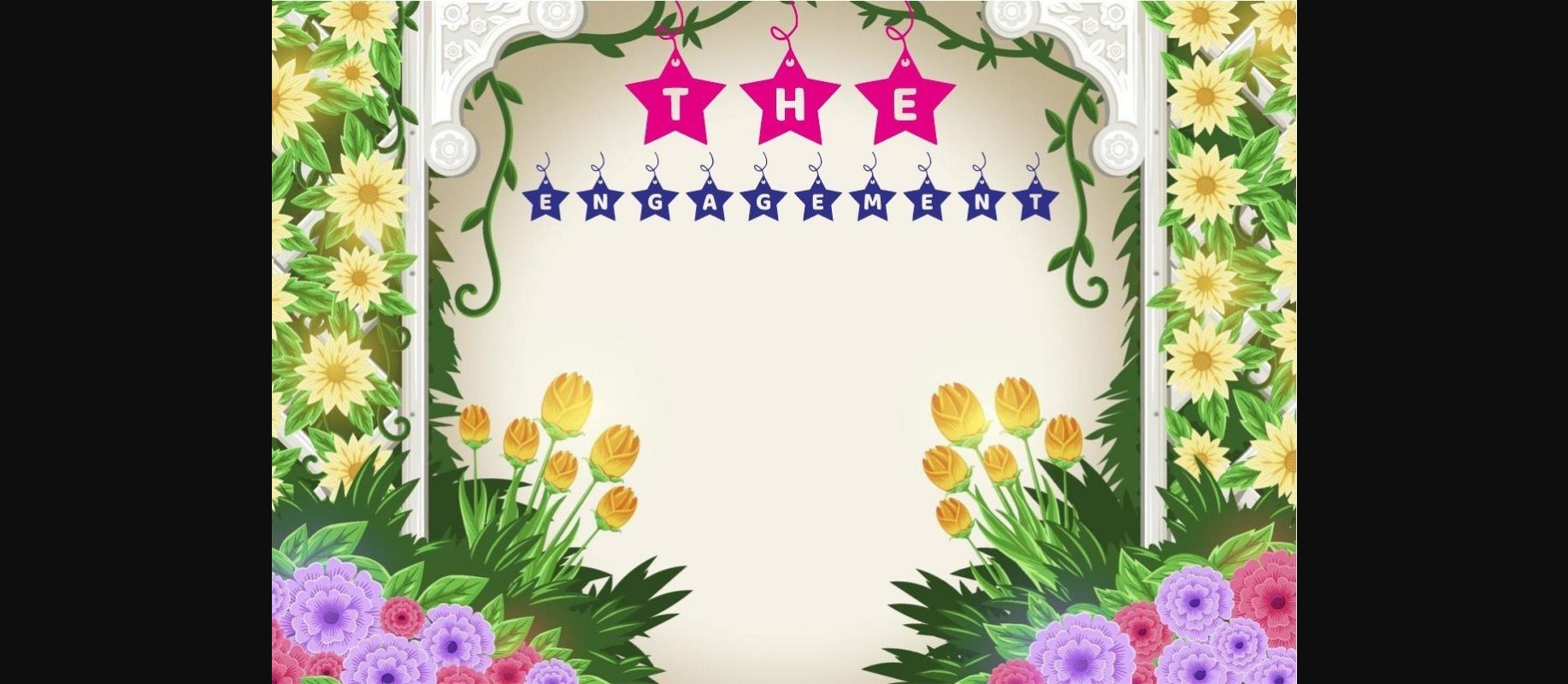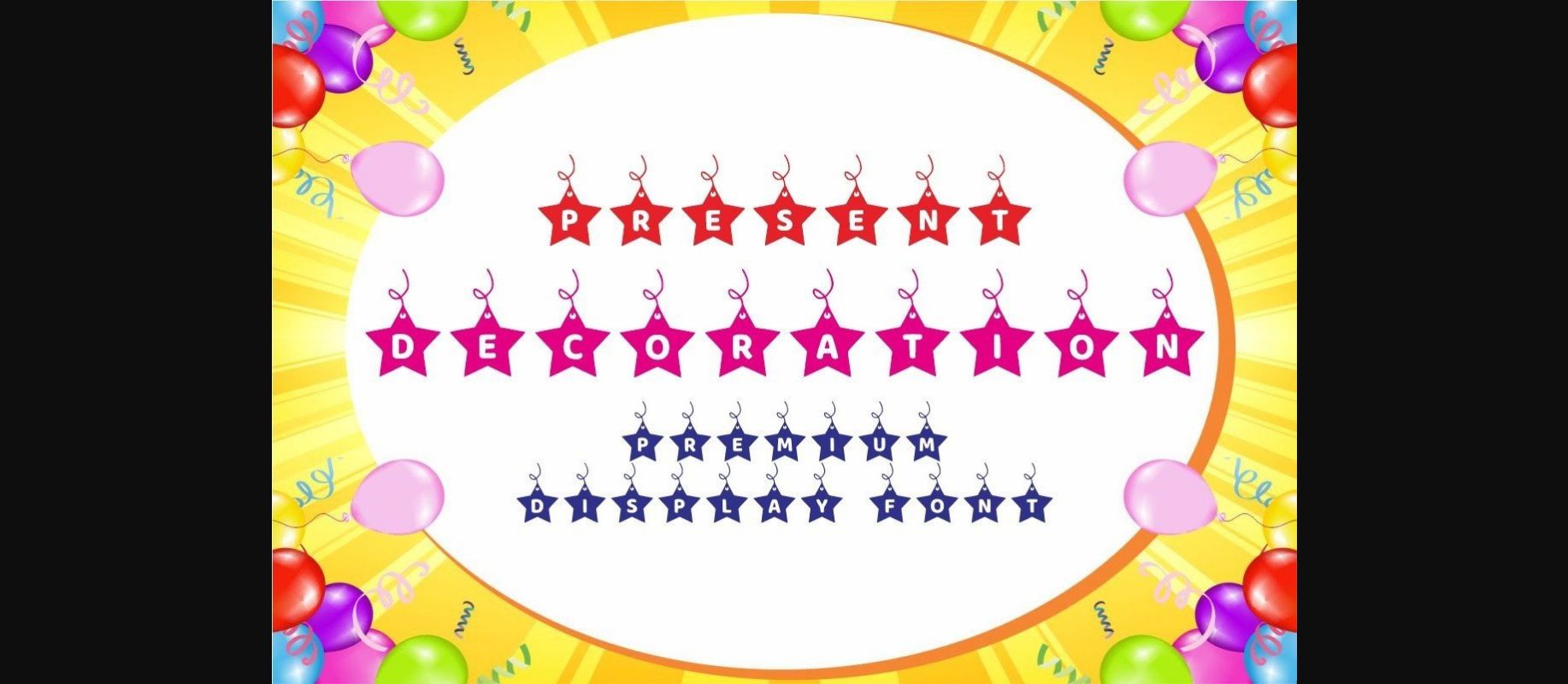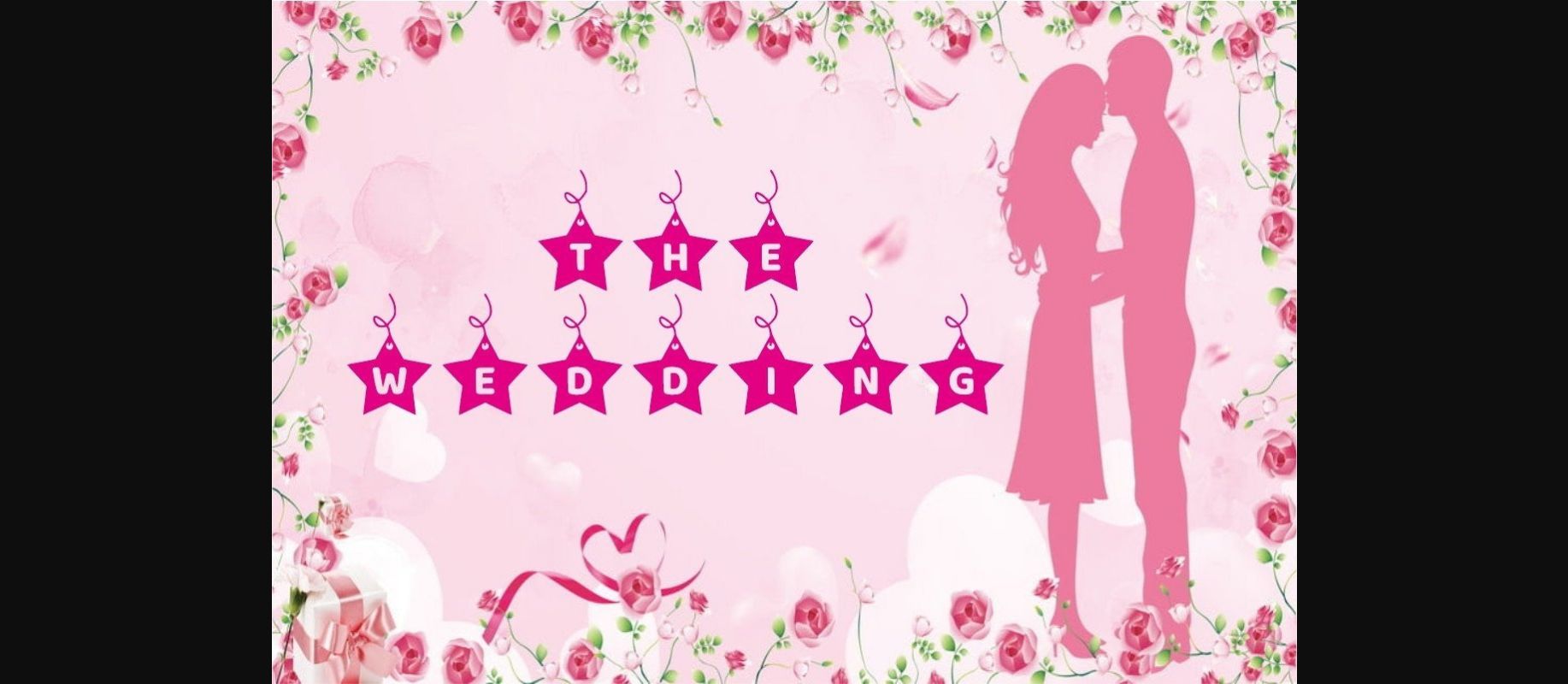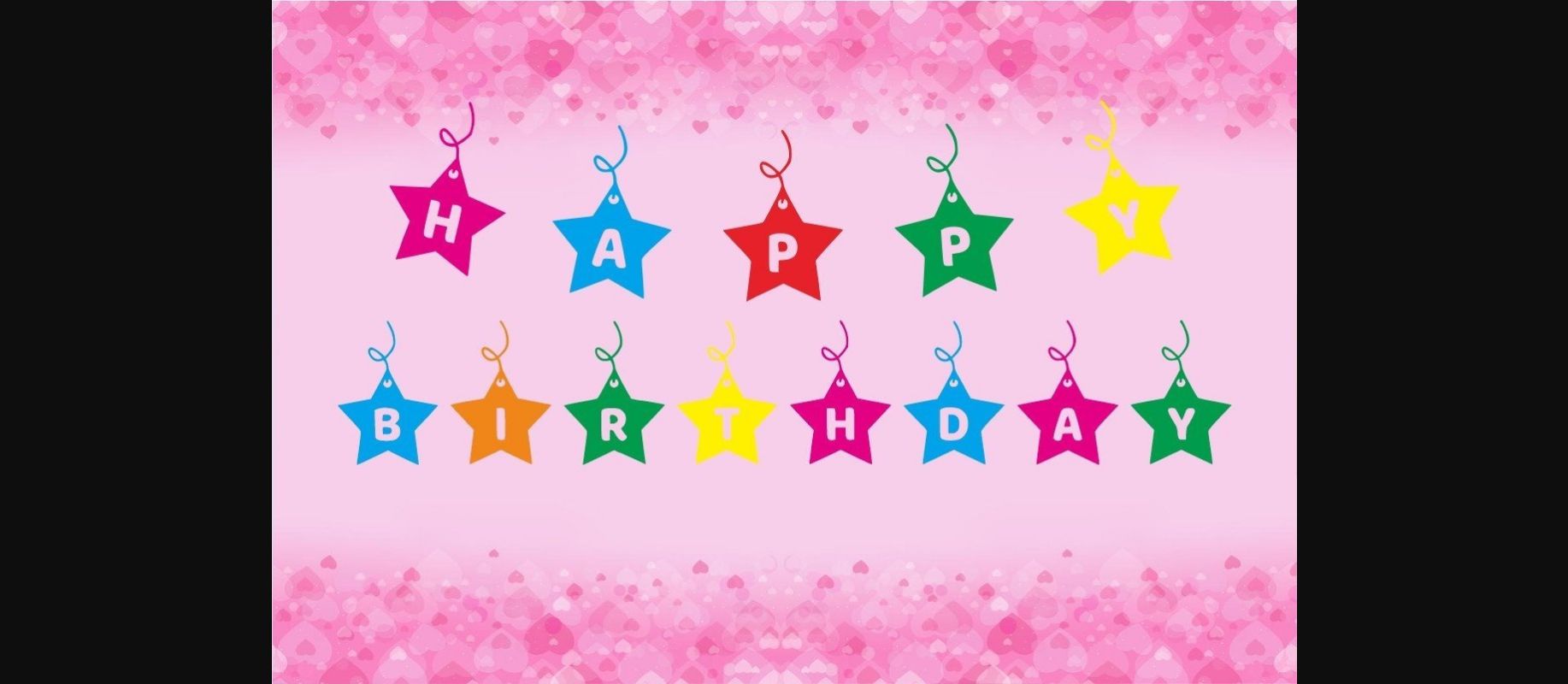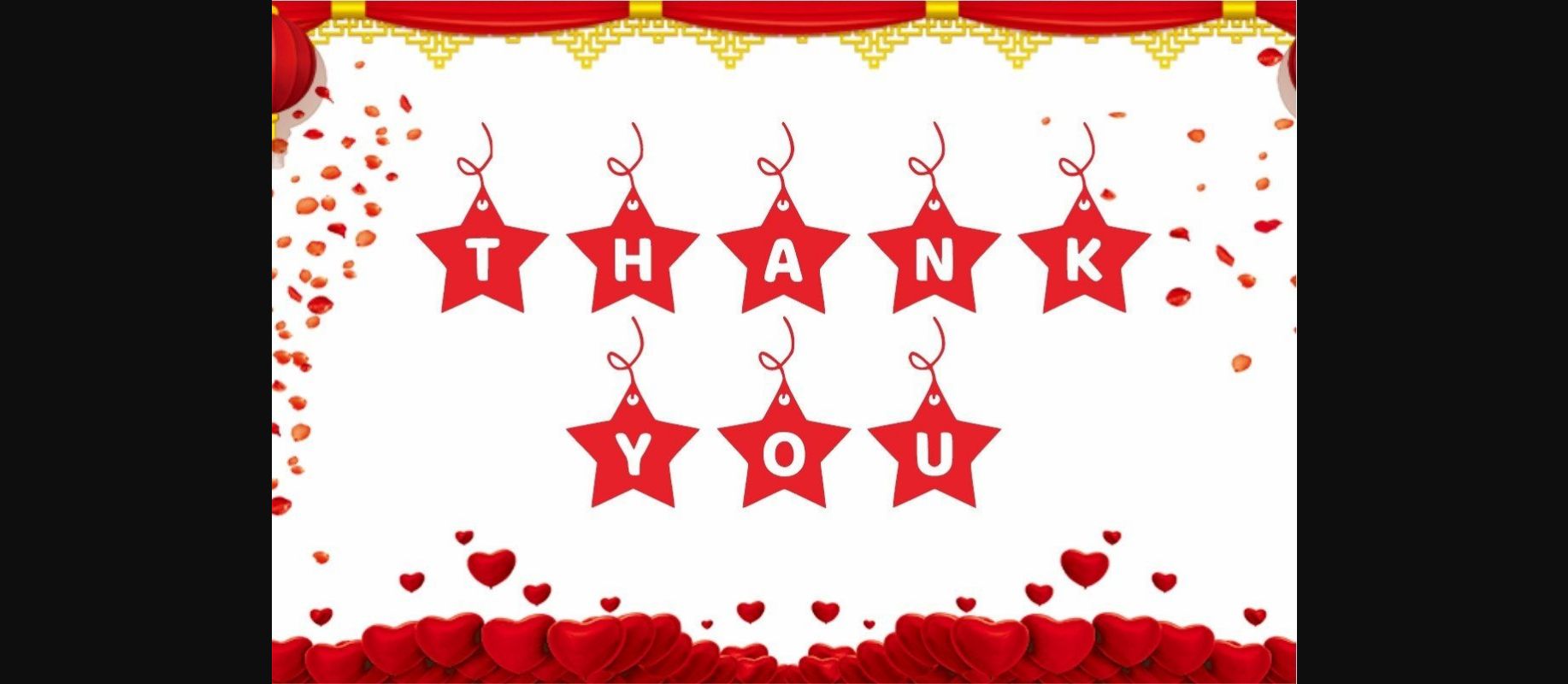
Decoration is a unique decorative font that has aesthetic value. You can use this font on wedding anniversaries or other creations that require a different touch and that you can expand on.